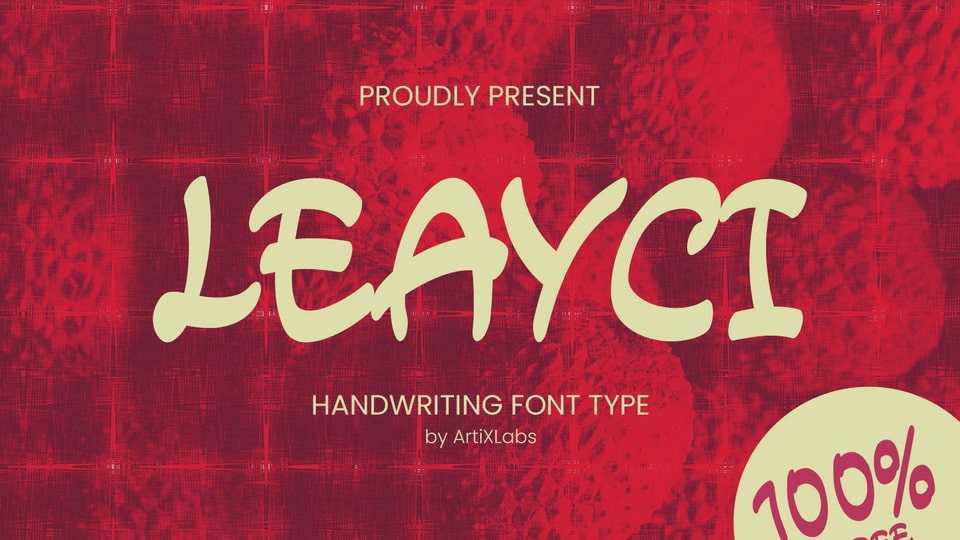
Download Leayci font, a bold and playful typeface full of energy. With its rounded shapes and friendly curves, this font is perfect for kids’ designs, toys packaging, logos, posters, comics, and all fun creative works.
Designer: ArtiXLabs